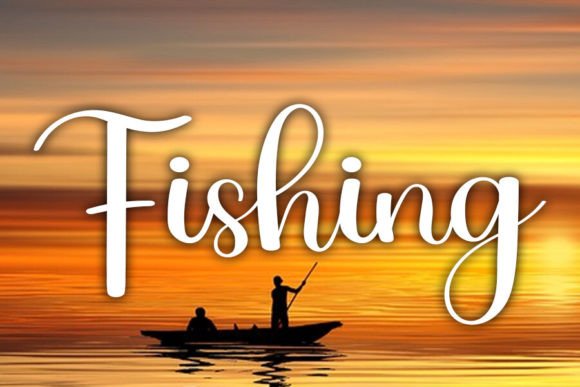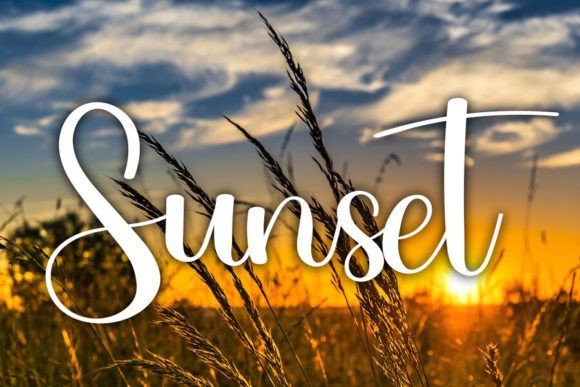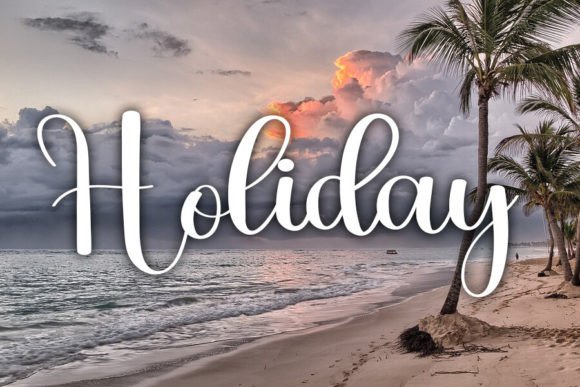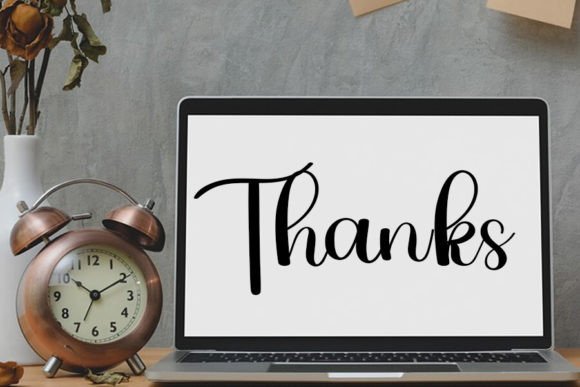
Introduction to Hibrid Font
Have you ever stared at a blank canvas, feeling the creative juices flow, but struggling to bring your vision to life? That’s when the perfect font can make all the difference. For designers, finding the right font can be a game-changer, elevating a simple design into a stunning work of art. And that’s exactly what the Hibrid Font promises to deliver – a fresh and beautiful font that’s perfect for your next creative project.
With its simple yet unique design, the Hibrid Font is an excellent addition to any designer’s toolkit. Whether you’re working on a YouTube banner, a wedding invitation, or an ID card, this font is sure to impress. Its high-quality design and transparent background make it a valuable resource for any creative project.
Key Features of Hibrid Font
- Unique, hand-drawn design with intricate details, perfect for adding a touch of personality to your creative project.
- Perfect for use in digital and print-based creative projects, including logos, branding materials, and editorial content.
Honest Review: Hibrid Font
I recently stumbled upon the Hibrid Font and I’m excited to share my thoughts on it. As a designer, I’m always on the lookout for high-quality design resources that can elevate my creative projects.
One of the standout features of the Hibrid Font is its transparent background, which makes it super easy to use in various design applications. I’ve also been impressed by the font’s versatility – it’s perfect for a wide range of creative projects, from logos to typography-based designs.
Here are some of the things that work well with the Hibrid Font:
- ✨ High-quality design: The font has a clean and modern look that’s perfect for any design project.
- ✨ Versatile: It can be used in a variety of design applications, from logos to typography-based designs.
- ⚠️ Limited font sizes: The font doesn’t come with a wide range of font sizes, which might be a limitation for some designers.
- ⚠️ Not ideal for complex typography: While the font is great for simple typography-based designs, it might not be the best choice for complex typography projects.
Overall, I’m impressed with the Hibrid Font and would definitely recommend it to fellow designers. It’s a great addition to any design resource library, and its free download makes it a valuable resource for designers on a budget.